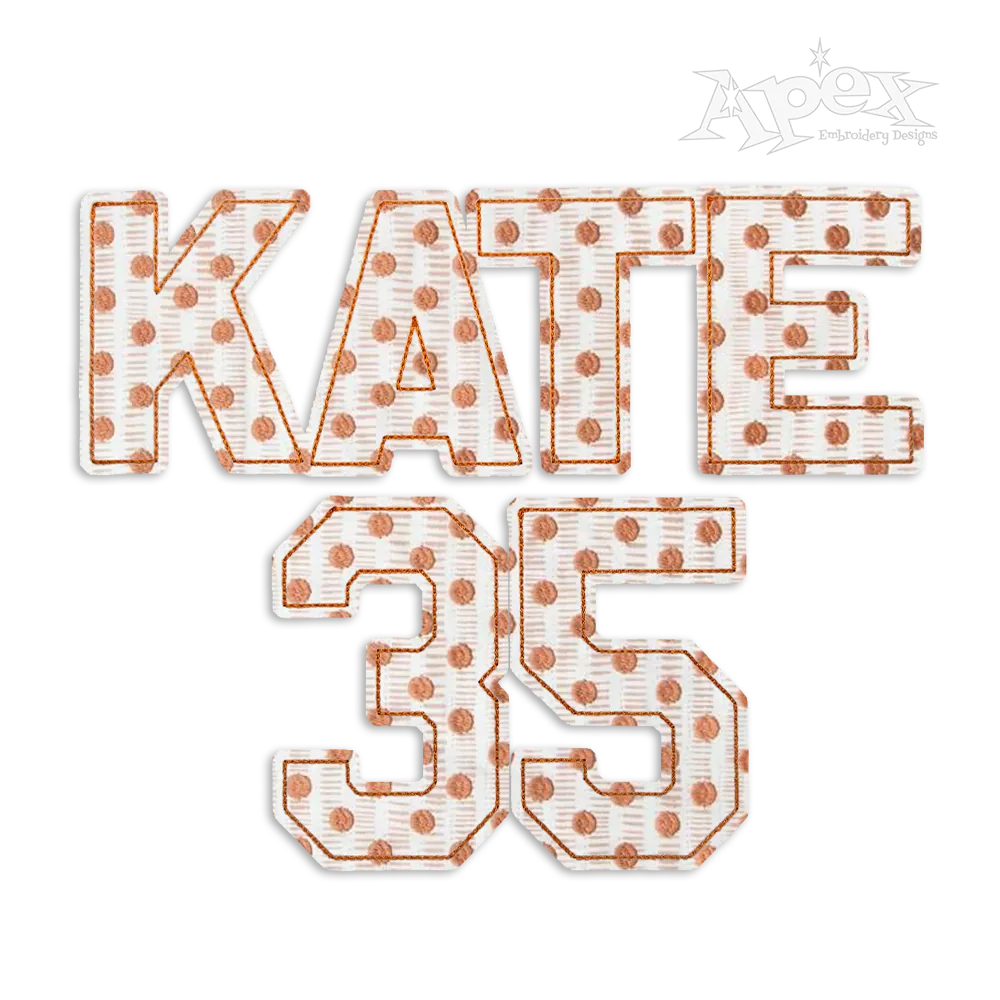
Large Block Applique Distress Embroidery Fonts
There is an undeniable, electric energy in vintage stadium culture—the sun-faded banners hanging from arena rafters, the timeworn wool of letterman jackets, and the unyielding geometry of mid-century athletic typography. In digitizing the Large Block Applique Distress font, our studio sought to capture that monumental scale and rugged collegiate heritage for modern machine embroidery. These commanding letterforms celebrate architectural weight and timeless Americana, giving you the choice between an immaculate, glossy satin border and an intentionally weathered, raw-edge outline stitch. Every line is balanced to anchor heavy fabrics with effortless authority, bringing nostalgic grandeur and bespoke craftsmanship to your largest hoop projects.
Designed specifically for large-scale hoops, this collection delivers tremendous presence and includes six complete design sets across the full alphabet (A–Z) and numerals (0–9) in two distinct applique edge styles:
- Two Distinct Finishing Techniques: Choose the sleek, high-density satin stitch for a clean, classic collegiate finish, or select our innovative distress outline stitch for an authentic, frayed-edge vintage feel.
Project Ideas for Large Block Applique Distress
Because of its immense scale and athletic typography, this applique alphabet transforms substantial textiles into bespoke statements:
- Custom Varsity & Bomber Jackets: Create striking statement backs with single or stacked initials across heavyweight wool, twill, or denim.
- Oversized Stadium Blankets: Applique a family monogram or school mascot initial onto thick fleece, sherpa, or wool-blend throws for chilly game days.
- Collegiate Fleece Hoodies: Stitch bold, arched campus-style lettering across the chest of heavy cotton sweatshirts.
- Heavy-Duty Canvas Boat Totes: Personalize structured weekender duffels and beach totes with a crisp, commanding nautical initial.
- Heritage Nursery & Playroom Pennants: Frame large single-letter appliqués onto felt wall pennants or vintage-inspired nursery quilts.
- Milestone Birthday Jersey Quilts: Combine the bold appliqued numerals with sports t-shirt quilt blocks for commemorative gifts.
Due to the impressive 8, 10, and 12-inch proportions of this collection, thoughtful hoop planning and fabric support are key to flawless results:
- Full Jacket Backs: Position the 10-inch or 12-inch letters dead-center between the shoulder blades for maximum graphic impact that mimics authentic athletic uniforms.
- Center Chest Applications: Use the 8-inch variation centered horizontally across the chest on oversized garments, ensuring the design sits approximately 2 to 3 inches below the neckline ribbing.
- Quilt Medallions & Wall Hangings: Center a solitary monogram within a primary quilt square or hanging banner to serve as the dominant visual focal point.
- Luggage & Tote Panels: Hoop heavy duck canvas or structured twill flat, centering the letter on the primary front panel before final bag assembly.
Large Block Applique Distress Craft & Letterform Details
Digitizing typography at this scale requires far more than simply enlarging a standard alphabet; it demands a master digitizer’s understanding of fabric push-and-pull, thread tension, and structural integrity. Every letterform in this set is constructed with broad, confident vertical pillars, generous open counters, and sharp rectangular angles that celebrate the classic varsity silhouette. We meticulously engineered the applique cut and tackdown sequences to secure base fabrics smoothly, preventing puckering or bubbling beneath the applique material even at the massive 12-inch scale.
The two finishing styles each tell their own artisanal story. The classic satin stitch option boasts a dense, tightly calibrated column with clean underlay that seals fabric raw edges with a luminous, tailored sheen. In contrast, the new distress stitch employs an intricately staggered, multi-pass outline that mimics the artful irregularity of weathered chenille or timeworn sports apparel. This intentional variation gives the applique a relaxed, lived-in aesthetic straight off the embroidery machine without sacrificing structural durability or edge retention.